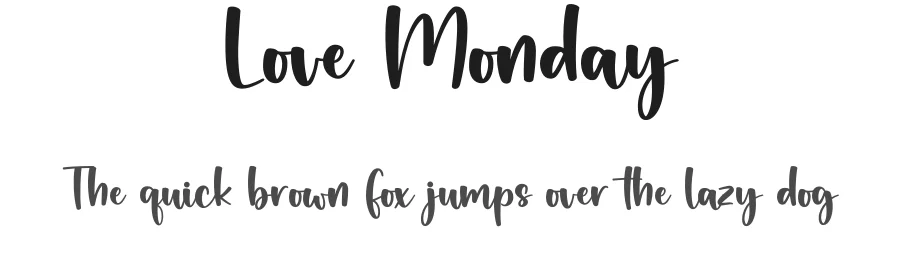
About Border Wall Font
Border Wall Specifications
| Font Family | Border Wall |
| Full Name | Border Wall |
| Glyph Count | 141 glyphs |
| PostScript Name | BorderWallRegular |
| Designer | Rachmad Bagus Fatchi |
Border Wall Font is a script font that shines as a display or heading face. Pair it with a clean sans-serif or serif font for body text β the contrast creates a clear hierarchy while the two styles stay balanced and easy to read.